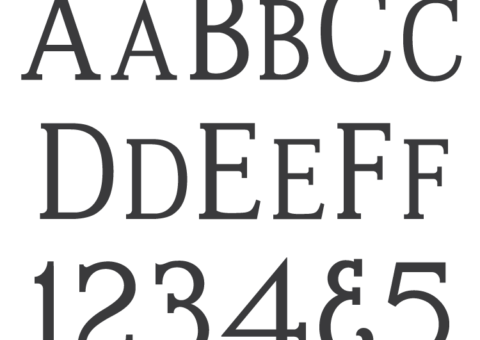
MLC PALL Canada Modified Roman
A set of 3 digital fonts based on the plastic PALL Modified Roman alphabet used for cutting sandblast stencil. Both OpenType and TrueType formats included with the download.